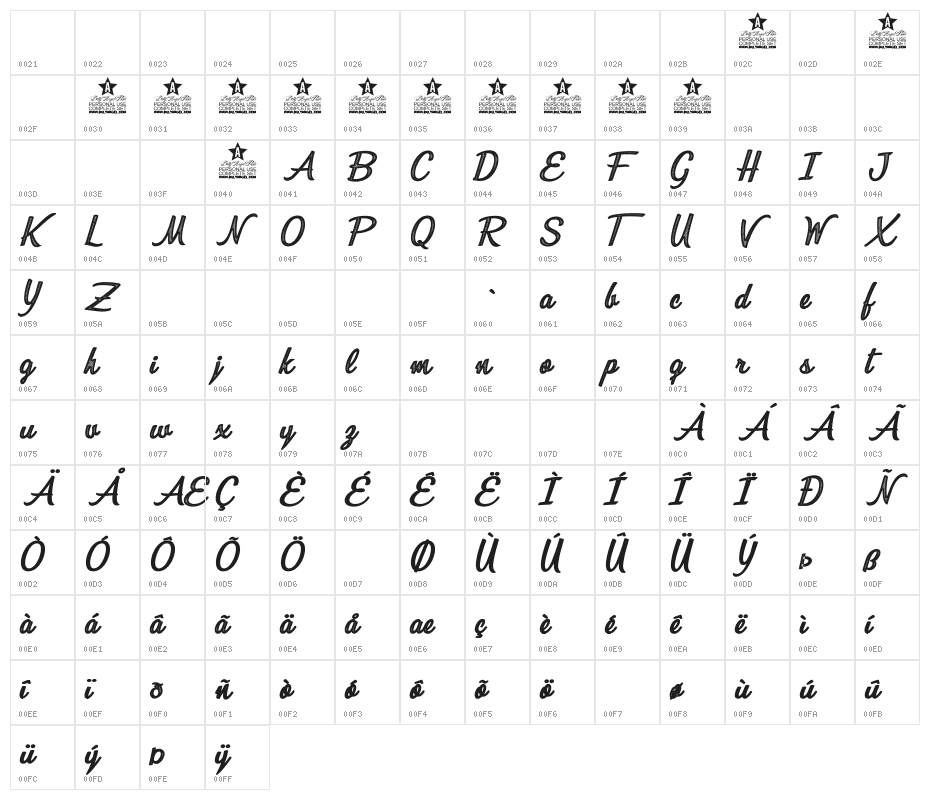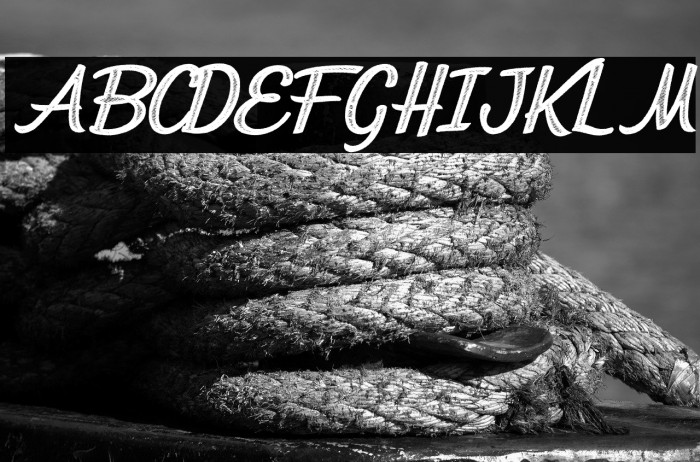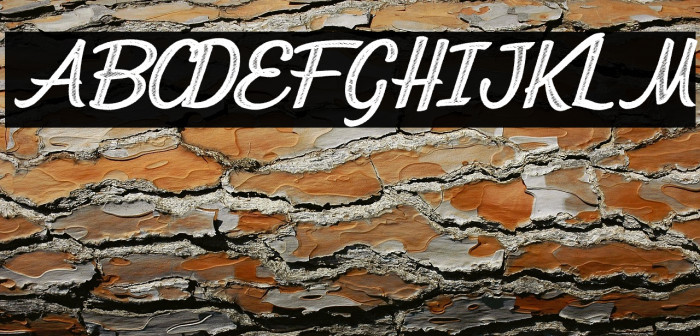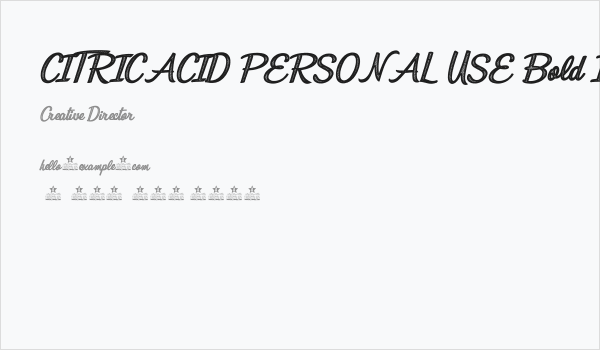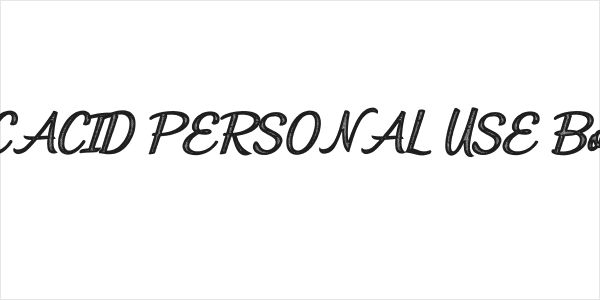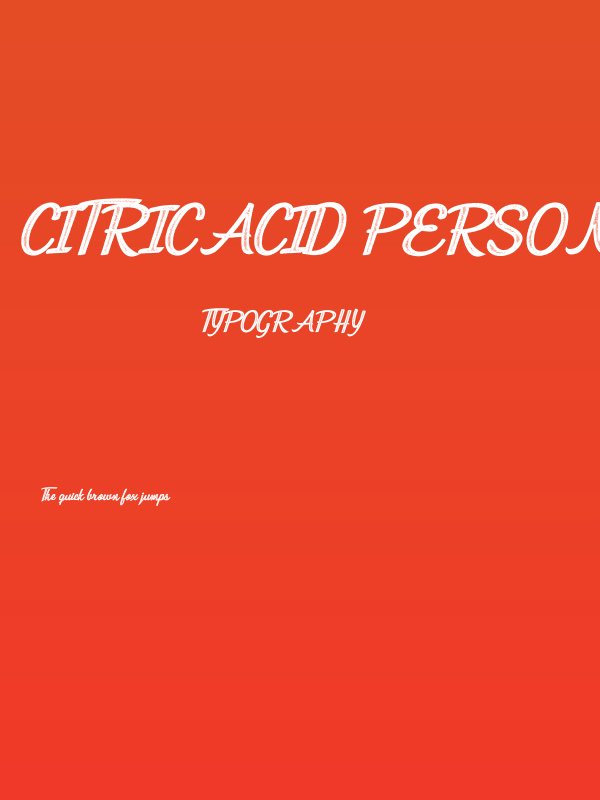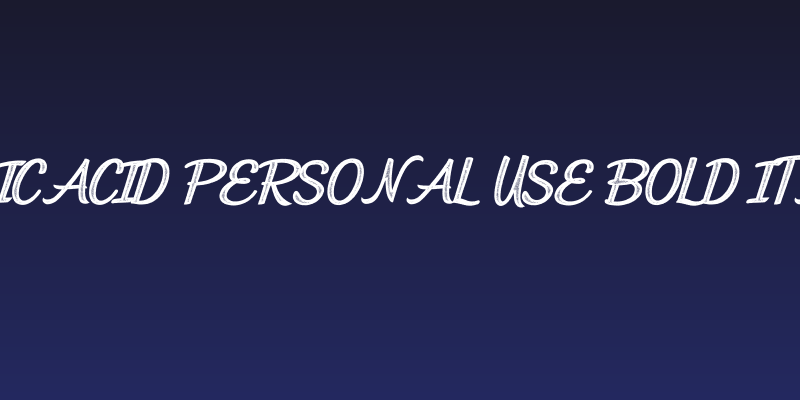
CITRICACID PERSONAL USE Bold Italic Font
CITRICACID PERSONAL USE Bold Italic Description
This font features a bold and italic style with a distinctive handwritten appearance. The letters are slightly slanted, giving it a dynamic and energetic feel. The strokes are thick and consistent, with a textured pattern that adds depth and character. The uppercase and lowercase letters maintain a cohesive style, while the numbers and special characters blend seamlessly with the overall design. This font is ideal for projects that require a personal touch, such as invitations, greeting cards, or branding materials.